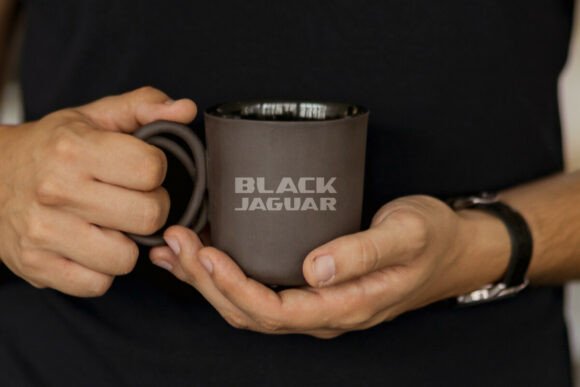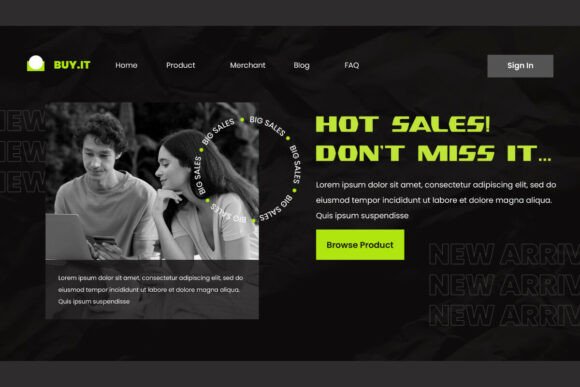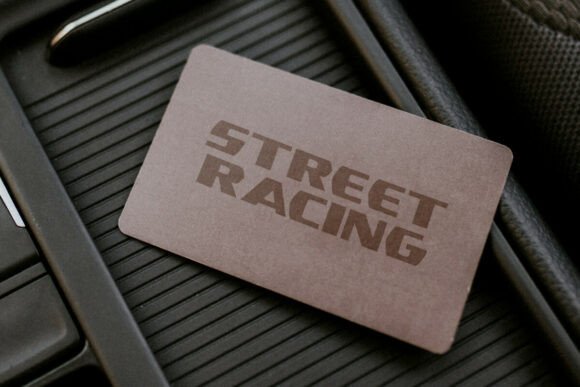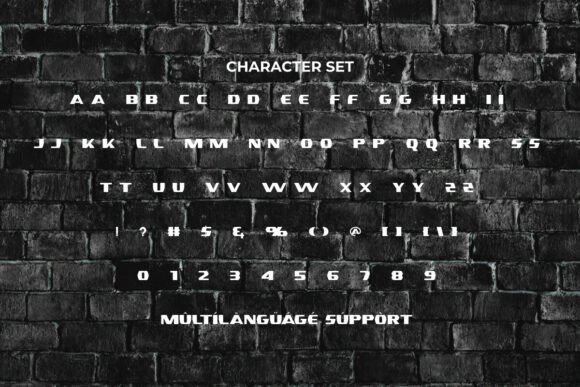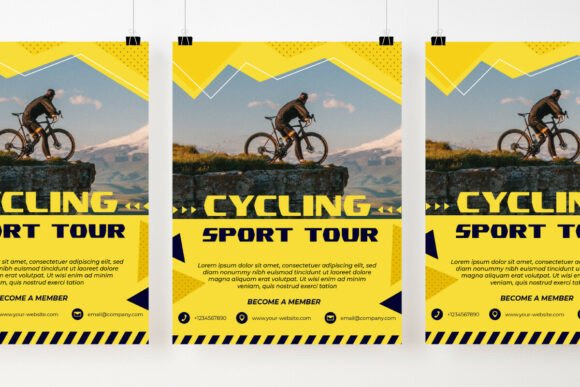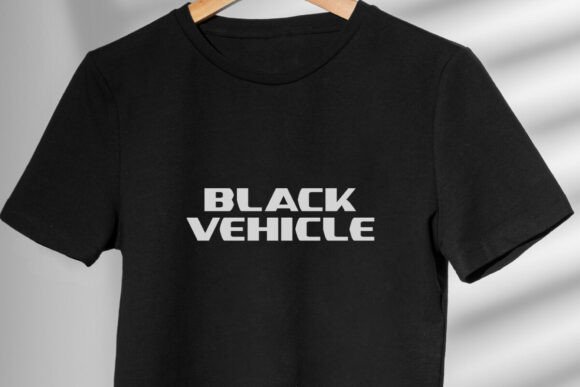
Get Ready to Shift Your Designs into High Gear
Do you remember the rush of excitement when you finally found the perfect font for your project? The one that made your design come alive and captured the essence of your message? For designers, finding the right font can be a game-changer. It’s what takes your work from good to great, and sets it apart from the rest.
Enter Black Vehicle Font, a bold and versatile sans-serif display font that’s perfect for designers looking to add a touch of modernity to their work. With its racing theme and random cuts on the letters, Black Vehicle Font is more than just a font – it’s an experience. And with its clean and easy-to-read appearance, it’s a valuable addition to any designer’s toolkit.
Black Vehicle Font Key Features
- Font Family: Black Vehicle Font is a sans-serif font family.
- Unique Characteristics: Black Vehicle Font is designed with a bold, modern aesthetic and includes a wide range of glyphs, including international characters and symbols.
Black Vehicle Font Review
Overall, I’m quite impressed with the Black Vehicle Font, but like any font, it has its strengths and weaknesses.
- Unique design aesthetic: Black Vehicle Font has a distinctive look that’s perfect for those who want to add a bit of edge to their designs.
- Good legibility: The font is clear and easy to read, even at smaller sizes.
- Wide range of weights: The font comes in a variety of weights, from light to bold, giving designers plenty of options for their projects.
- Not suitable for all projects: The font’s bold, edgy look may not be suitable for all types of projects, such as children’s books or formal business reports.
- Limited language support: The font may not support all languages, which could be a limitation for designers working on multilingual projects.
- Not ideal for small text: While the font is legible at larger sizes, it may become difficult to read at smaller sizes.
Overall, I think Black Vehicle Font is a great addition to any designer’s toolkit. While it may not be perfect for every project, it’s definitely worth considering for those who want to add a bit of attitude to their designs.
Use the black vehicle font to add a bold and dramatic effect to your designs.
1. Headlines and titles
2. Emphasis text
3. Branding and logos
4. Infographics and data visualizations
Alternatives to Black Vehicle Font for Designers
Montserrat is a sans-serif font designed by Julieta Ulanovsky. It is ideal for use in digital and print media, particularly in titles and headings. Montserrat is more geometric and modern than Black Vehicle Font, making it a great choice for contemporary designs.
Inter is a sans-serif font designed by Rasmus Andersson. It is a highly versatile font suitable for use in various contexts, including digital and print media. Inter is more legible and refined than Black Vehicle Font, making it a great choice for designs where readability is crucial.
Open Sans is a sans-serif font designed by Steve Matteson. It is a highly legible font suitable for use in digital media, particularly in body text. Open Sans is more rounded and friendly than Black Vehicle Font, making it a great choice for designs where approachability is key.
Avenir is a sans-serif font designed by Jean François Porchez. It is a highly elegant font suitable for use in print media, particularly in titles and headings. Avenir is more luxurious and sophisticated than Black Vehicle Font, making it a great choice for high-end designs.
Design Projects Using Black Vehicle Font
Retro Cyberpunk Poster